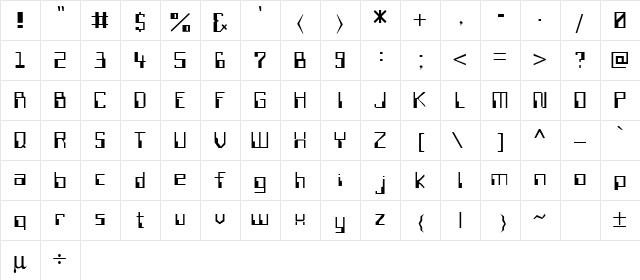
Sillycon Plain Plain
Design Context for Sillycon Plain Typeface
Sillycon Plain takes a measured approach to typography — its balanced proportions and neutral character make it a reliable workhorse for both digital and print work.